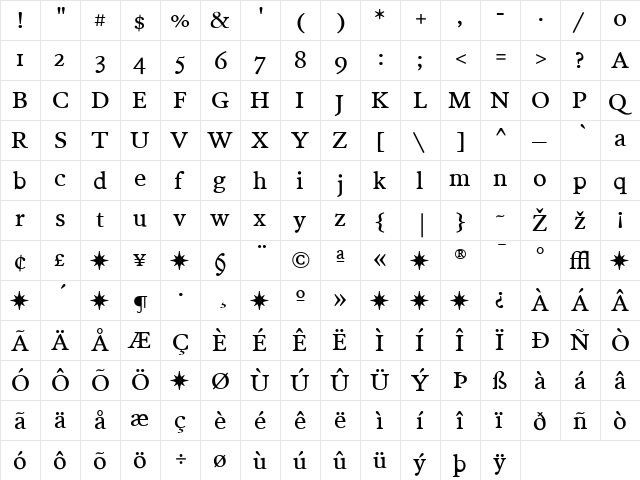
PoynterText-RomanThree Regular Font Preview
PoynterText-RomanThree Regular
PoynterText-RomanThree Regular Font Details
| Foundry | The Font Bureau, Inc |
| Copyright | 1996 The Font Bureau, Inc. Designed by Tobias Frere-Jones. |
Design Context for PoynterText-RomanThree Typeface
PoynterText-RomanThree takes a measured approach to typography — its balanced proportions and neutral character make it a reliable workhorse for both digital and print work.